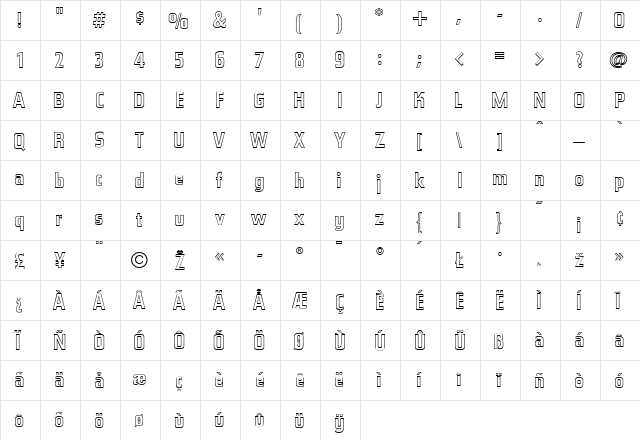
EsquireOutline Regular
Design Context for EsquireOutline Typeface
EsquireOutline is built around its visual character rather than neutral utility — its distinctive forms are designed to make an impression at display sizes.
Font Pairing: Pair with a clean neutral sans-serif for body copy to let EsquireOutline's character lead without overwhelming the composition.
Pro Tip: Use EsquireOutline exclusively at display sizes — it was designed to be seen, not read at length. Let a neutral companion handle body copy.